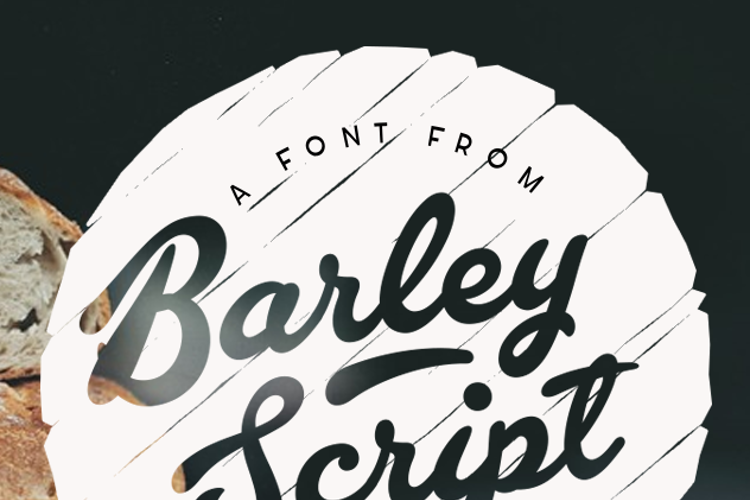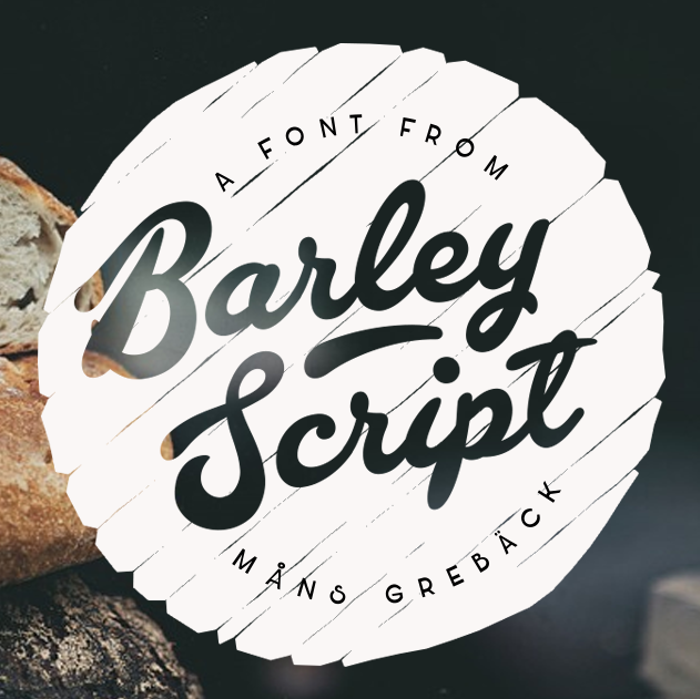
Barley Script Font
About Barley Script Font
Write underscores before any word to make an underline.
Example: _Barley
If your software supports ligatures, you can write multiple underscores for a longer line.
Example: __Bakeries
Kellogg-Like Font
Nice, balanced work!